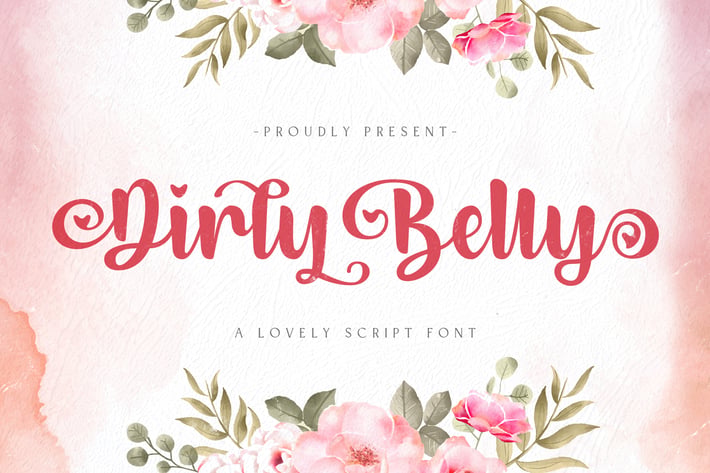
Dirly Belly - Lovely Calligraphy Font
Introducing Dirly Belly - Lovely Calligraphy Font
The Dirly Belly is a lovely modern calligraphy script font. It has a feminine look, which is great for wedding invitations and anniversaries, blogs and logos. Dirly Belly is a handwritten script font, described by an elegant touch, perfect for your favorite projects!
- Stylistic Alternates
The Dirly Belly is a lovely modern calligraphy script font. It has a feminine look, which is great for wedding invitations and anniversaries, blogs and logos. Dirly Belly is a handwritten script font, described by an elegant touch, perfect for your favorite projects!
- Stylistic Alternates